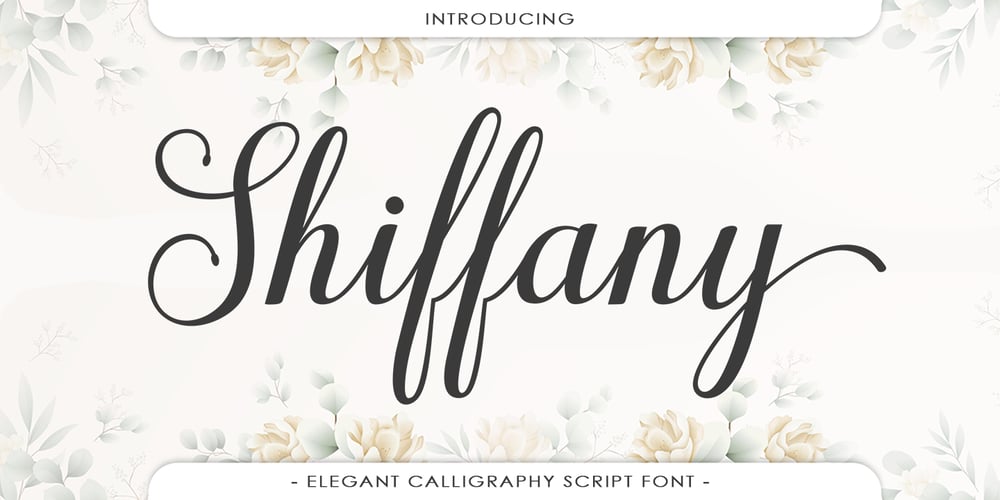
Shiffany Font Family was designed by Muammar Kadafi and published by Attract Studio. Shiffany contains 1 styles and family package options. INTRODUCINGShiffany Script is a new modern script font with an irregular baseline. Trendy and feminine style. Shiffany Script looks lovely on wedding invitations, thank you cards, quotes, greeting cards, logos, business cards and more. Perfect for using in ink or watercolour. Including initial and terminal letters, alternates, ligatures and multiple language support.Files included:Shiffany Script OTFTo enable the OpenType Stylistic alternates, you need a program that supports OpenType features such as Adobe Illustrator CS, Adobe Indesign & CorelDraw X6-X7, Microsoft Word 2010 or later versions. There are additional ways to access alternates/swashes, using Character Map (Windows), Nexus Font (Windows), Font Book (Mac) or a software program such as PopChar (for Windows and Mac).How to access all alternative characters:https://www.youtube.com/watch?v=Go9vacoYmBwhttps://www.youtube.com/watch?v=XzwjMkbB-wQhttps://www.youtube.com/watch?v=x1A_ilsBsGshttps://www.youtube.com/watch?v=xFlMwARHusYThanks so much for looking and please let me know if you have any questions.